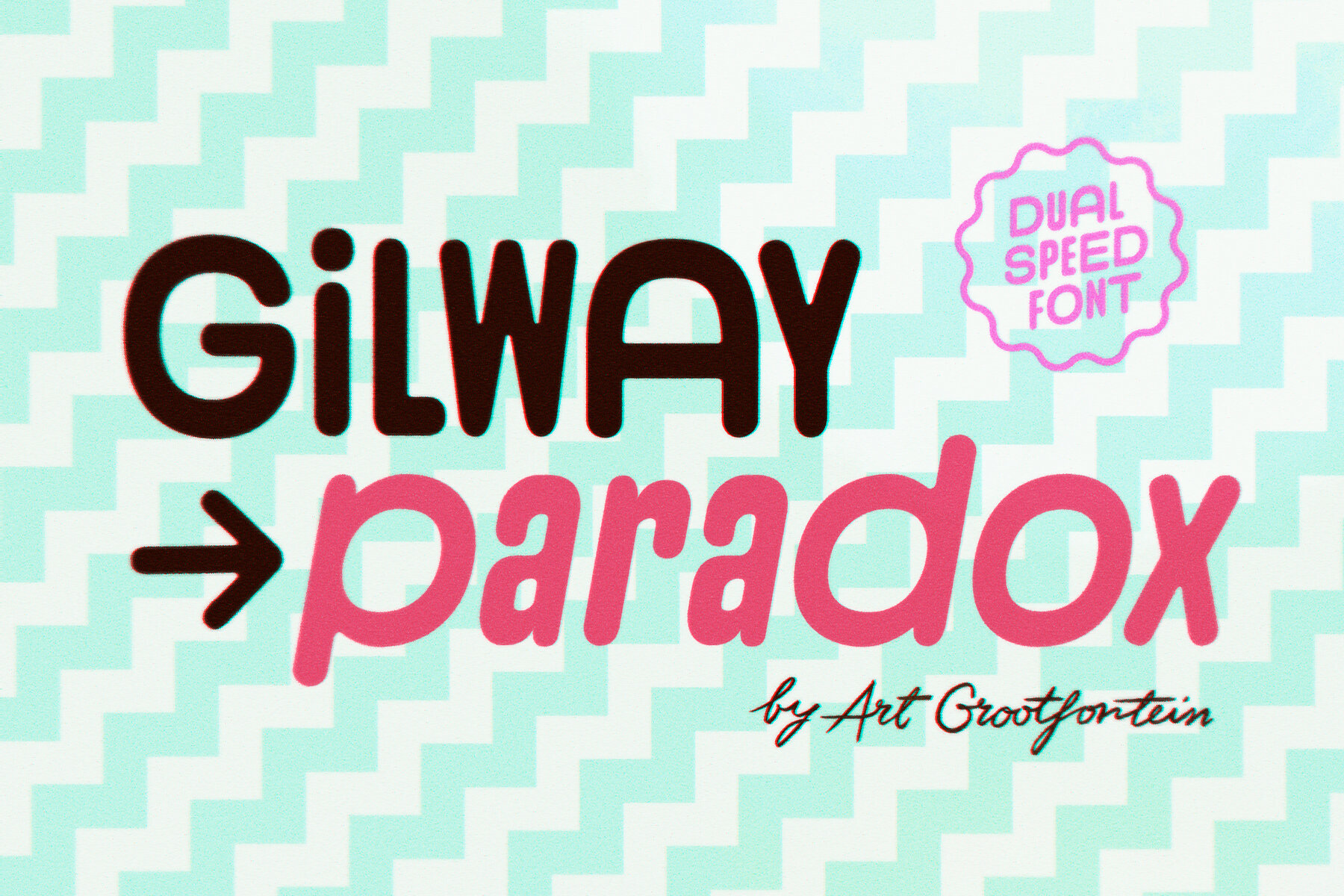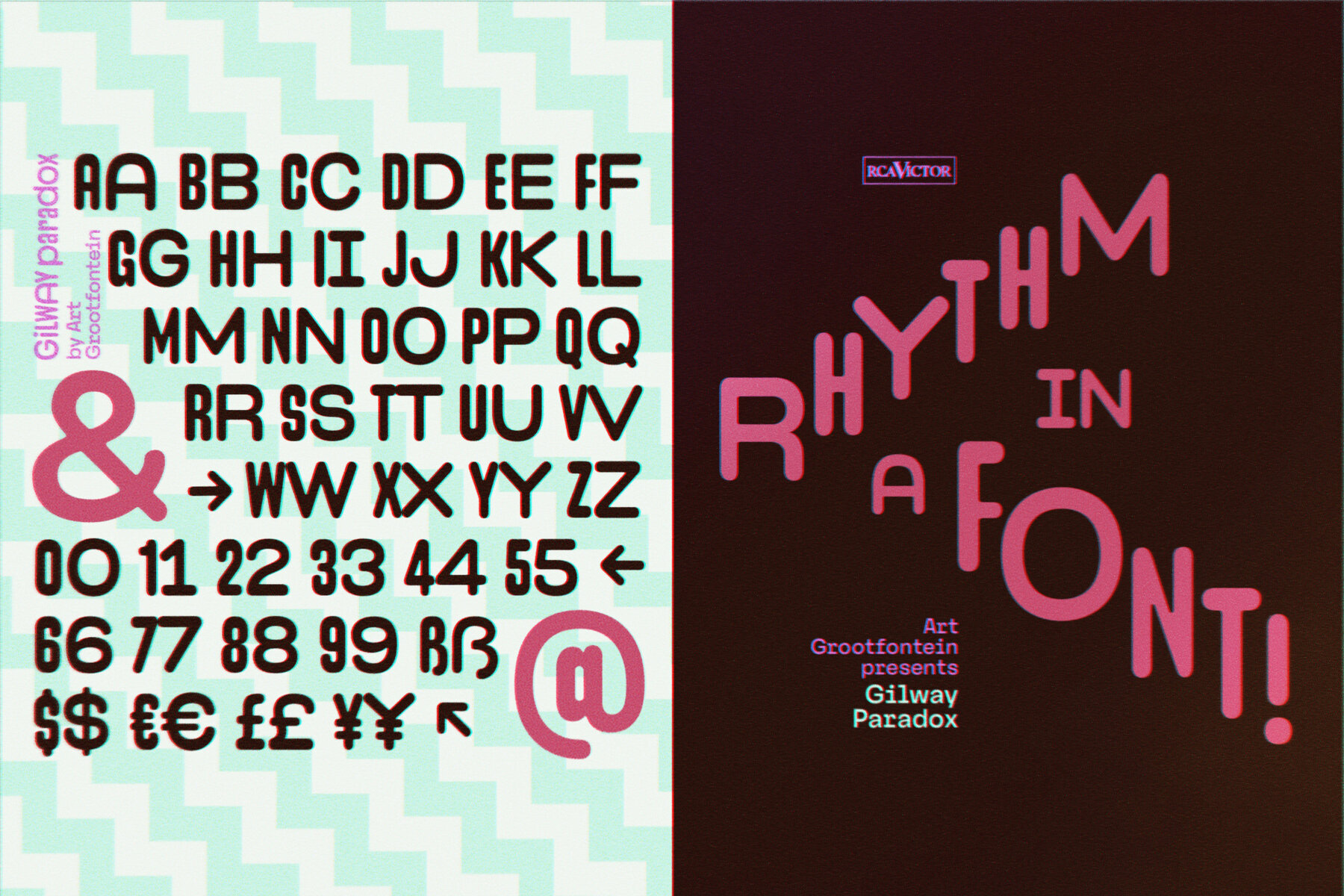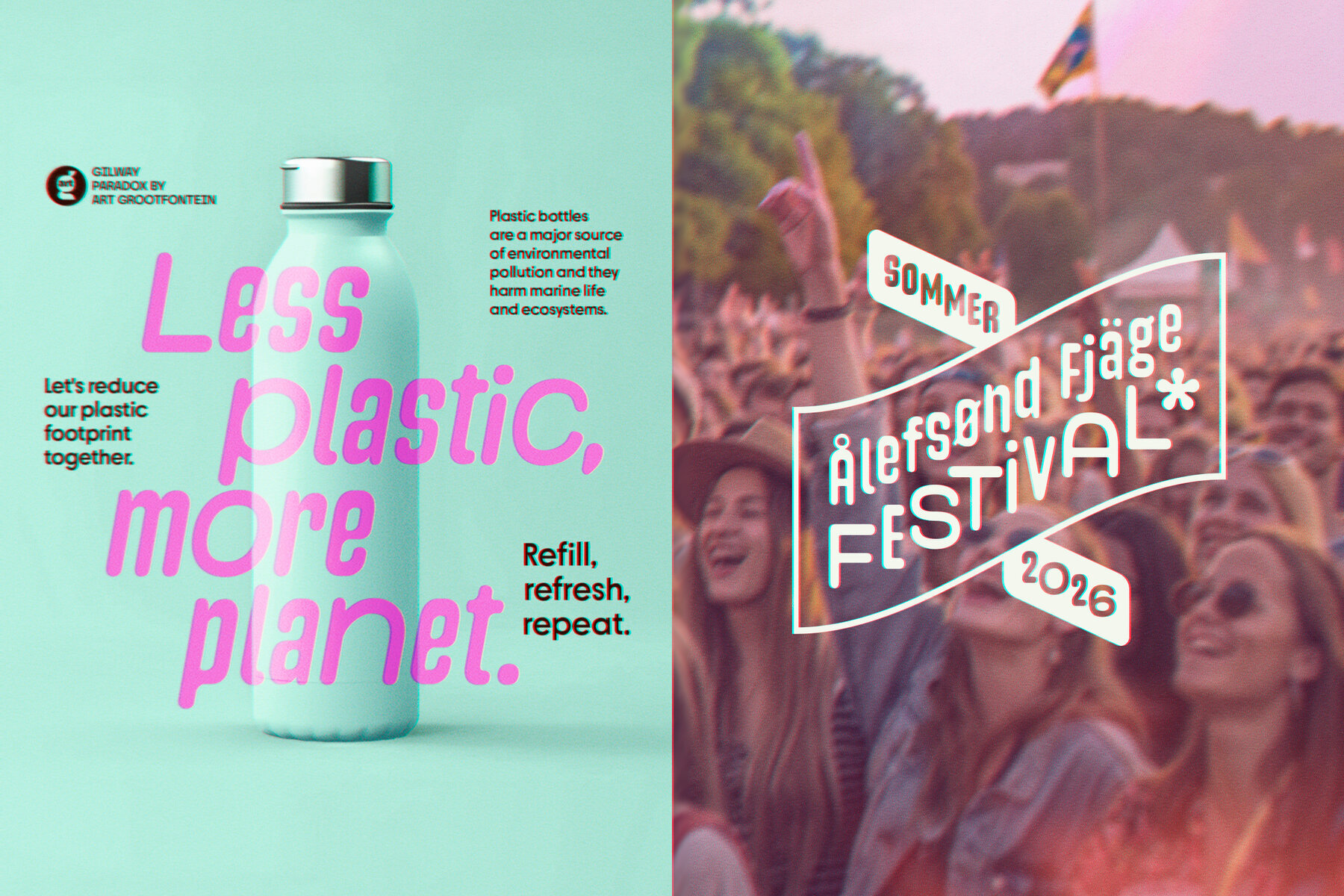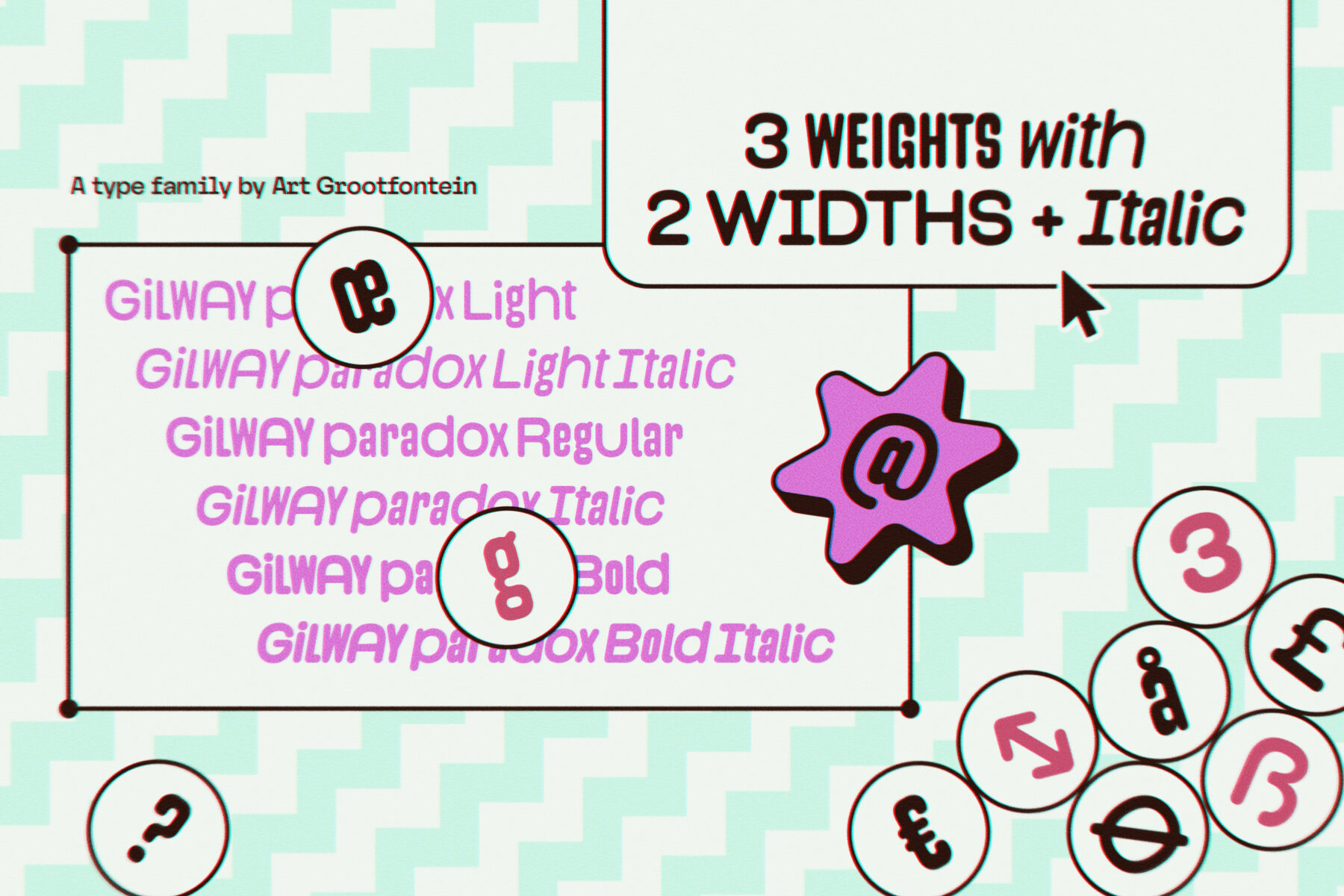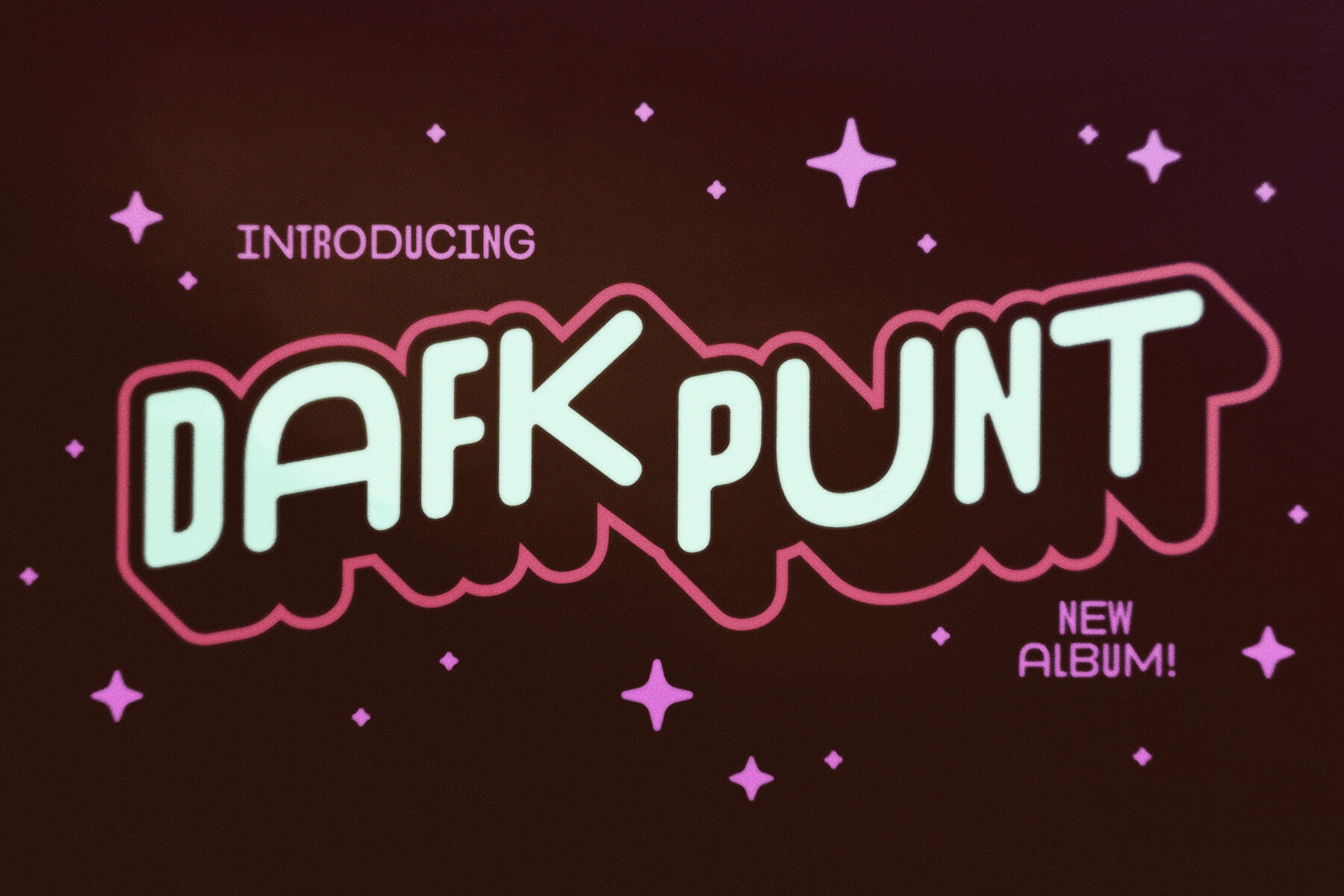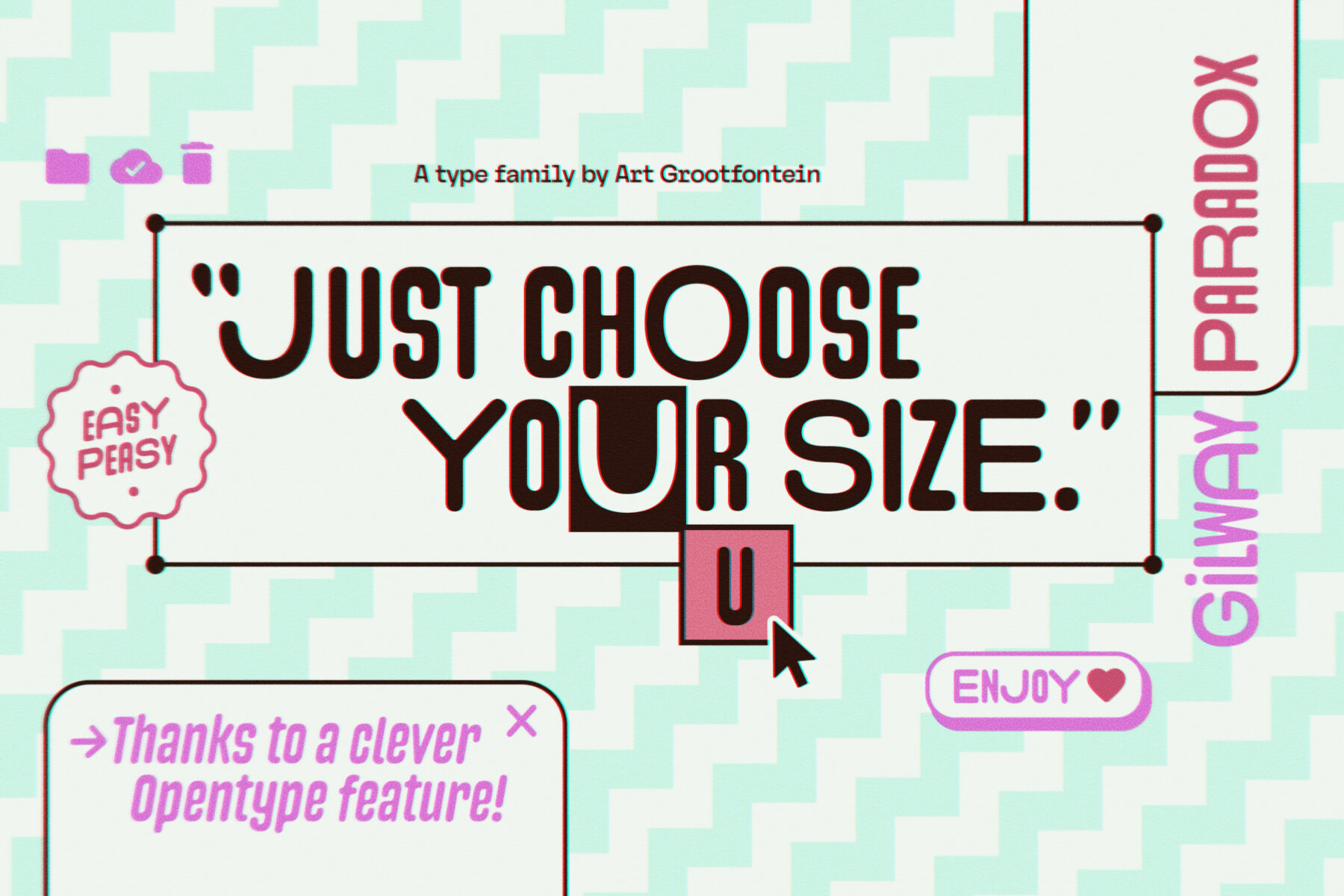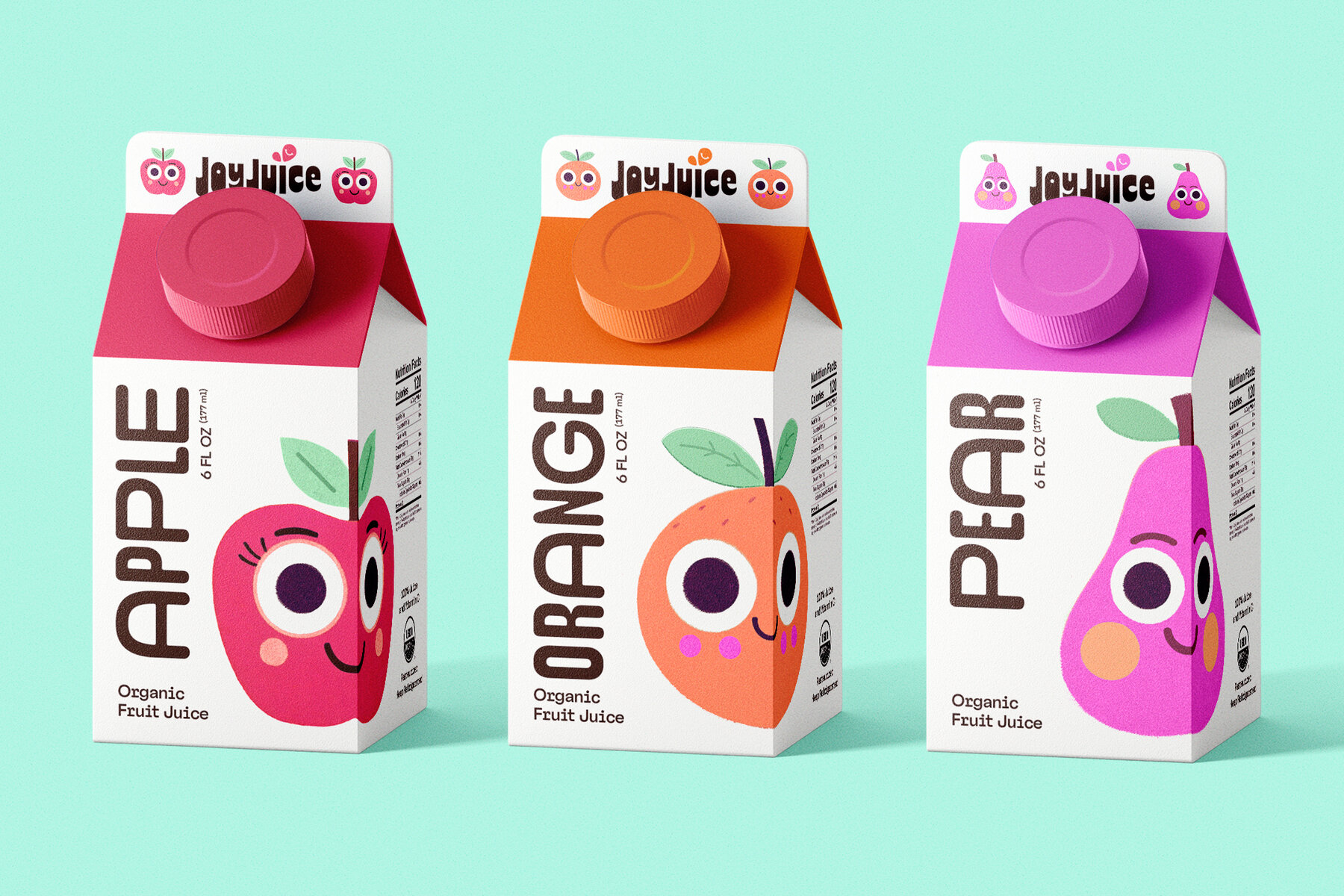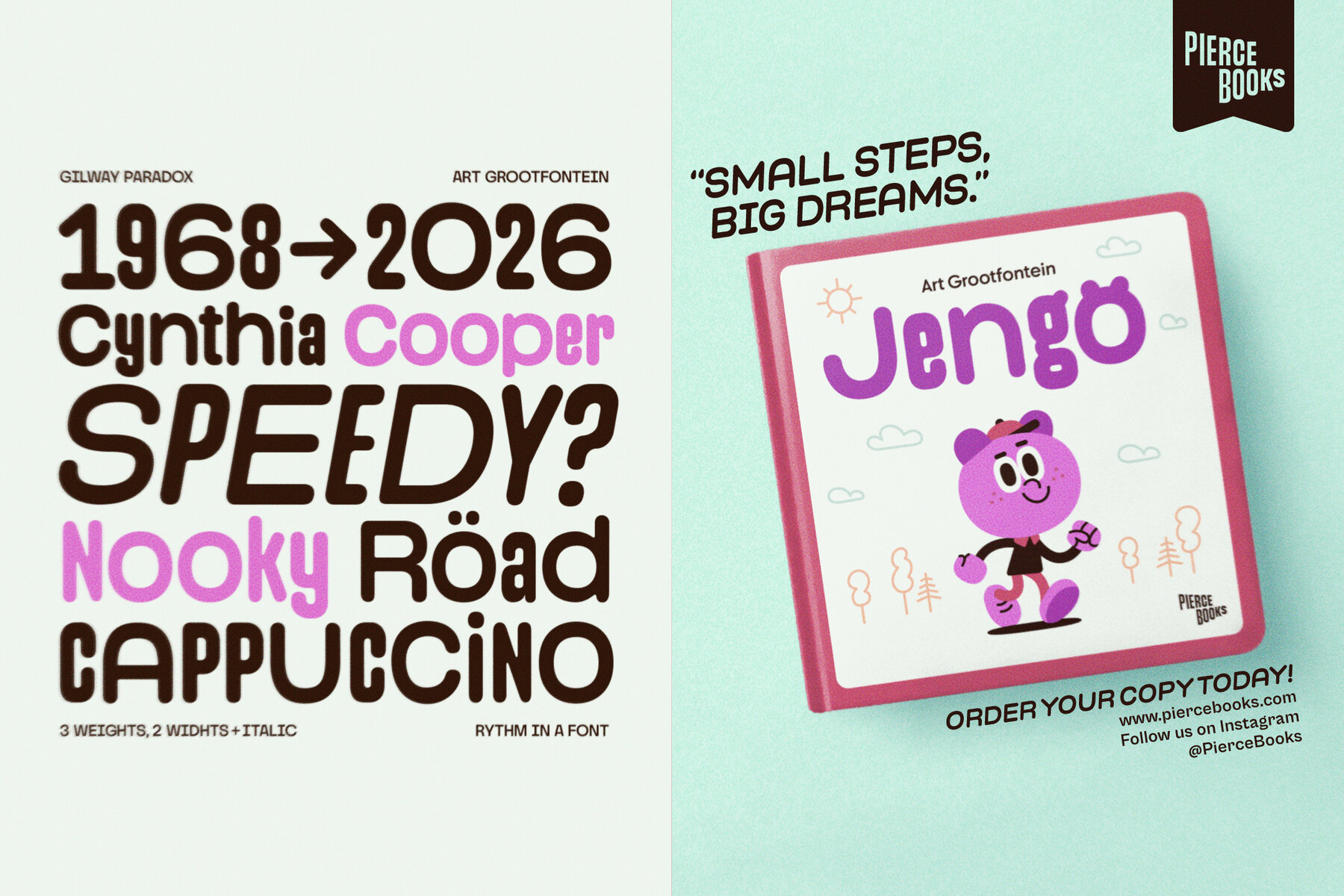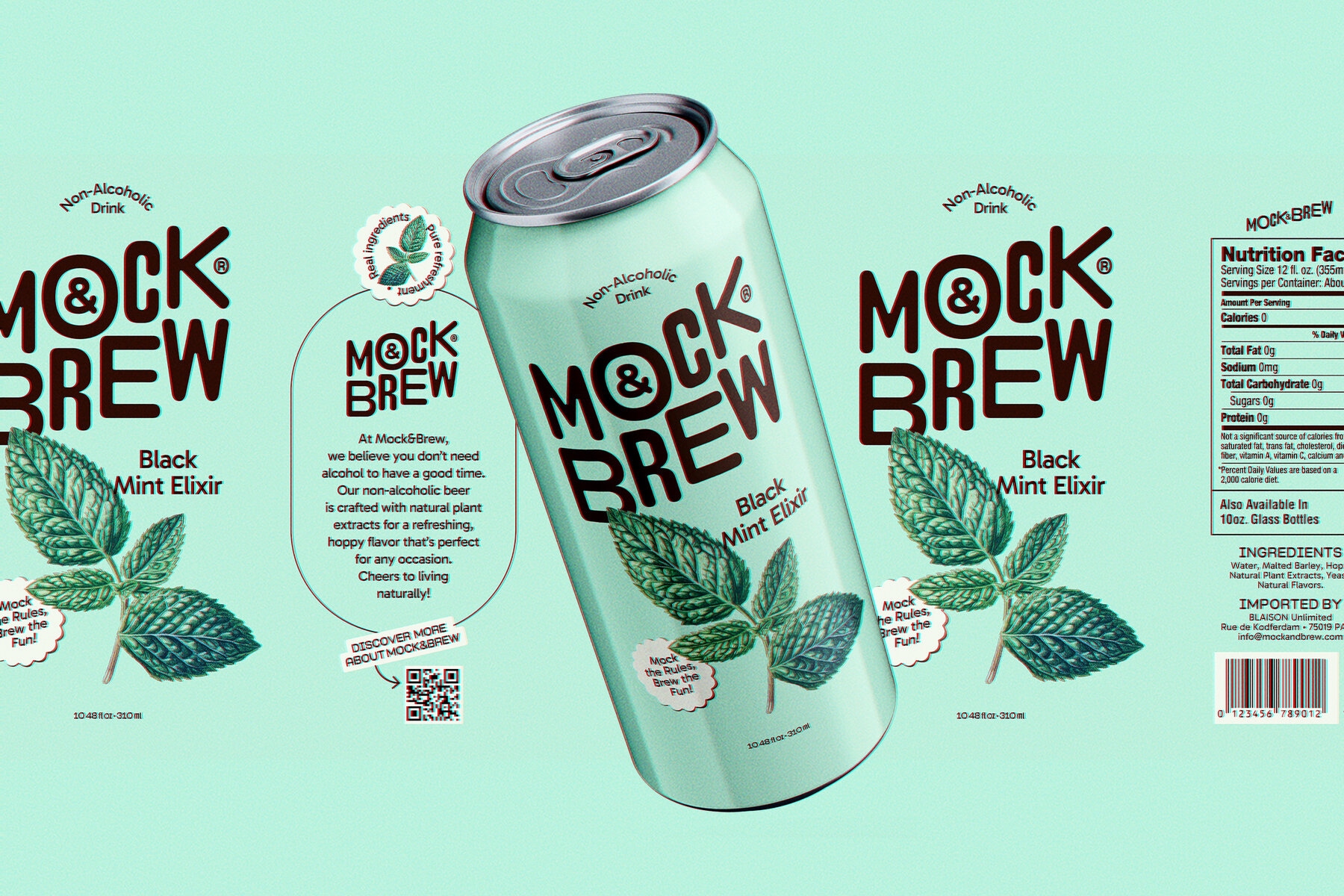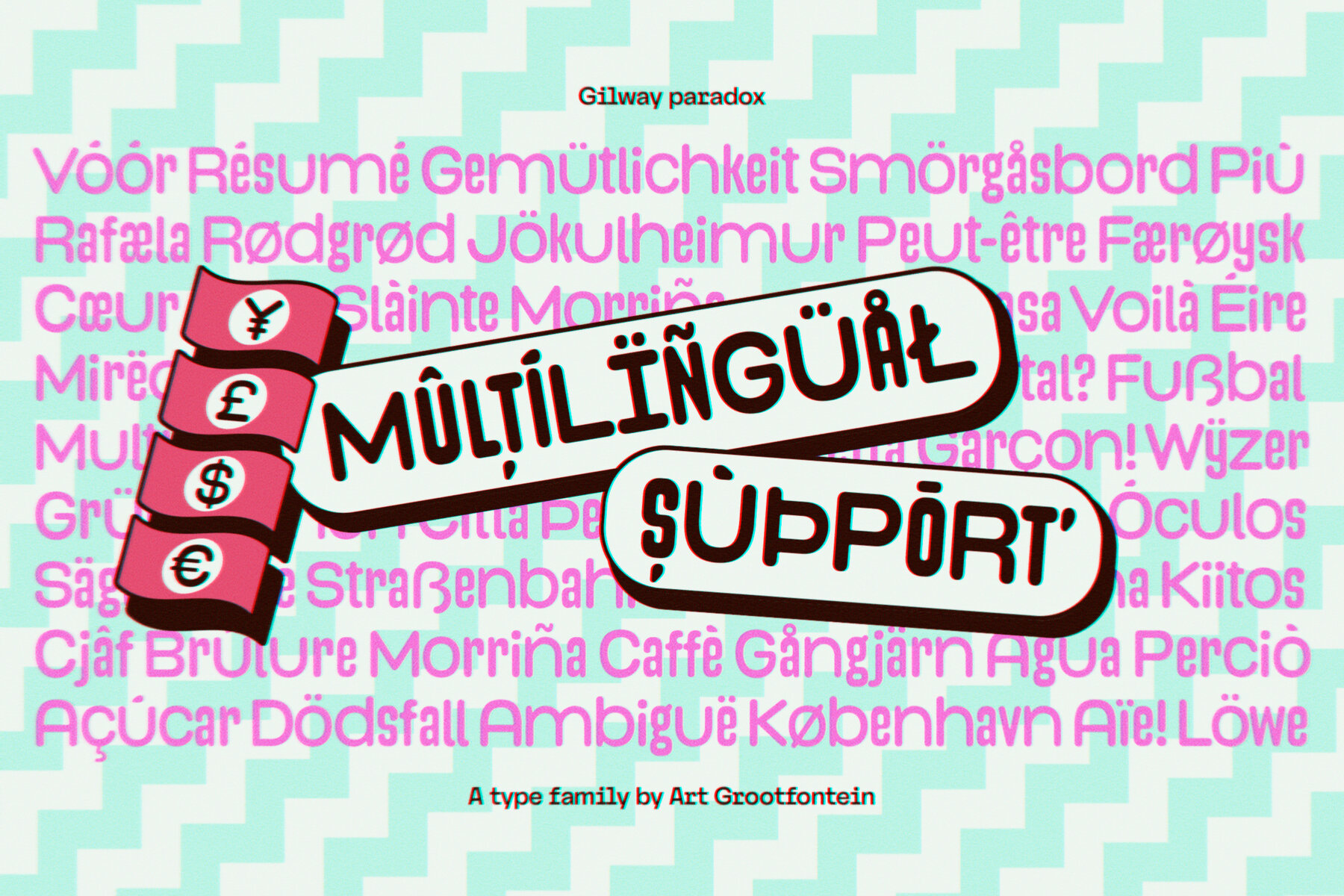
Gilway paradox Font
Discover Gilway Paradox, a unique dual-width font designed by Art Grootfontein that effortlessly blends warmth with motion. Featuring rounded typeface elements, this font promises to infuse your projects with an unforgettable rhythm. Its dual-width characters provide a dynamic visual experience that introduces vibrant energy into any design. With the convenience of OpenType, you can seamlessly switch between widths, offering limitless creative options.Gilway Paradox Typeface